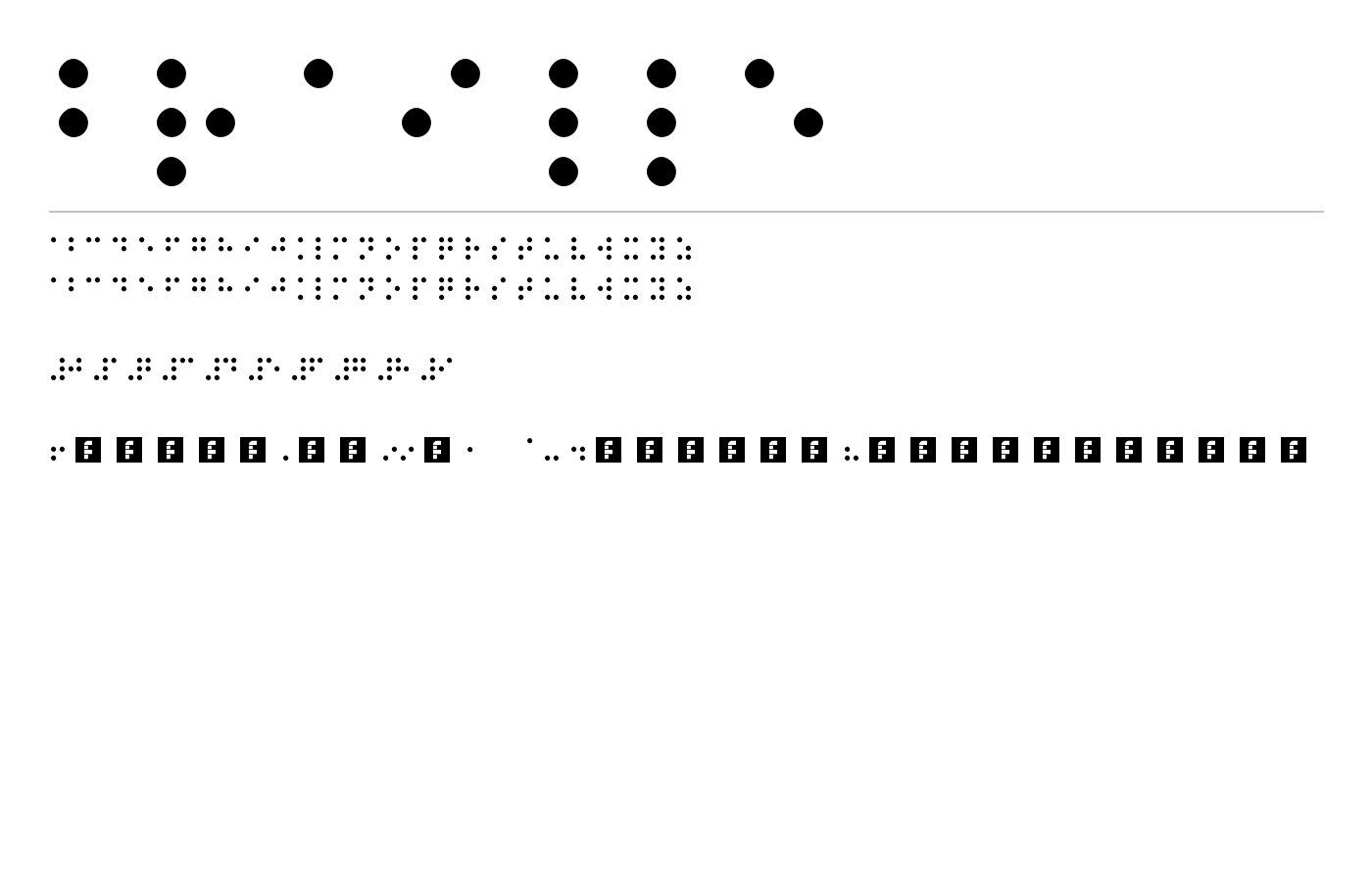
Braille Font is a unique and functional sans serif typeface inspired by the tactile writing system used by visually impaired individuals. It features a series of raised dot patterns that replicate actual Braille characters, presenting a modern and minimalist visual style with evenly spaced, uniform dots that create a clean, geometric rhythm. Ideal for educational materials, awareness campaigns, or designs focused on accessibility and inclusivity, this font combines simplicity and purpose to communicate effectively while honoring the Braille system's original intent.
Braille Font
About Braille Font